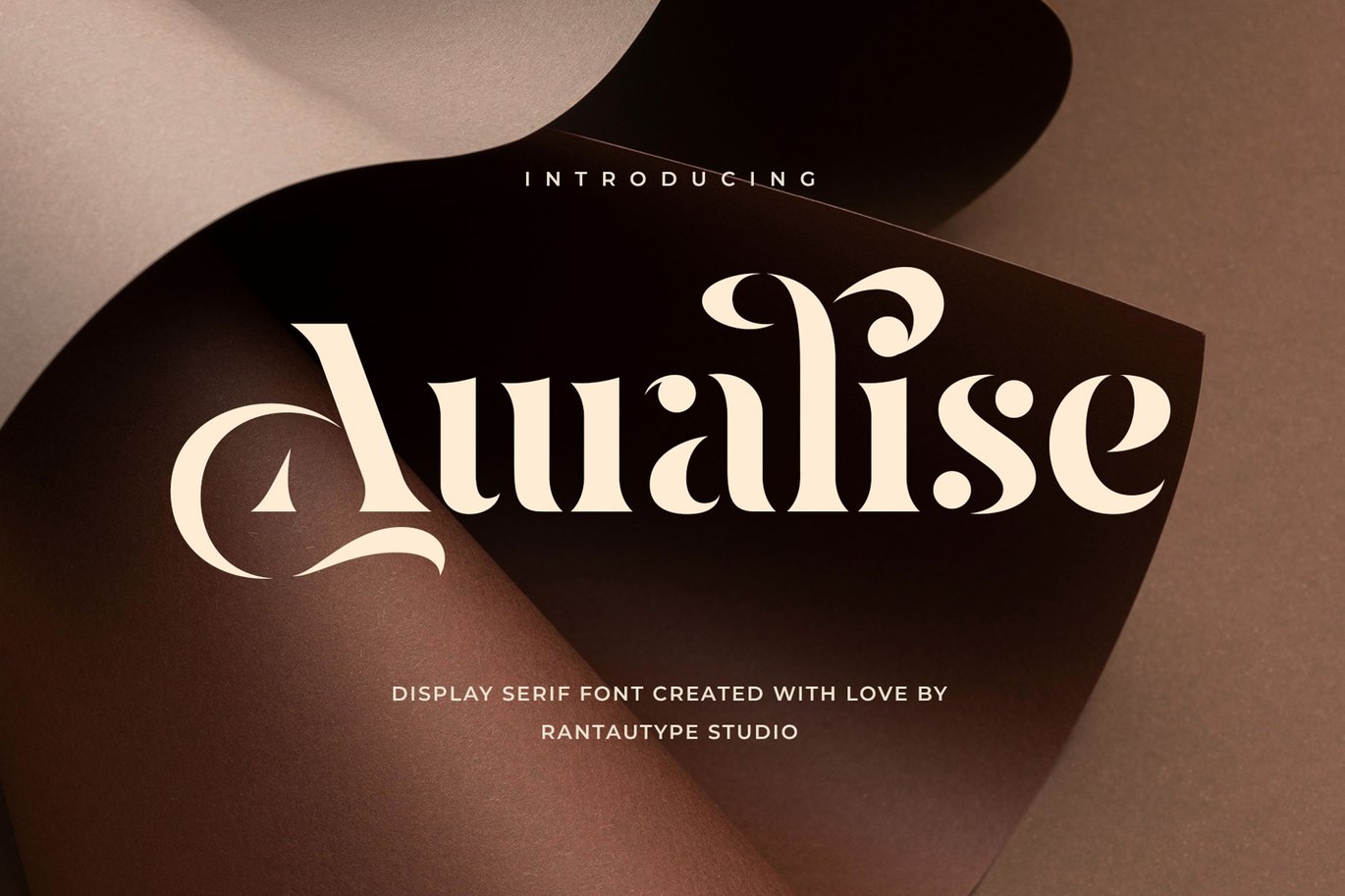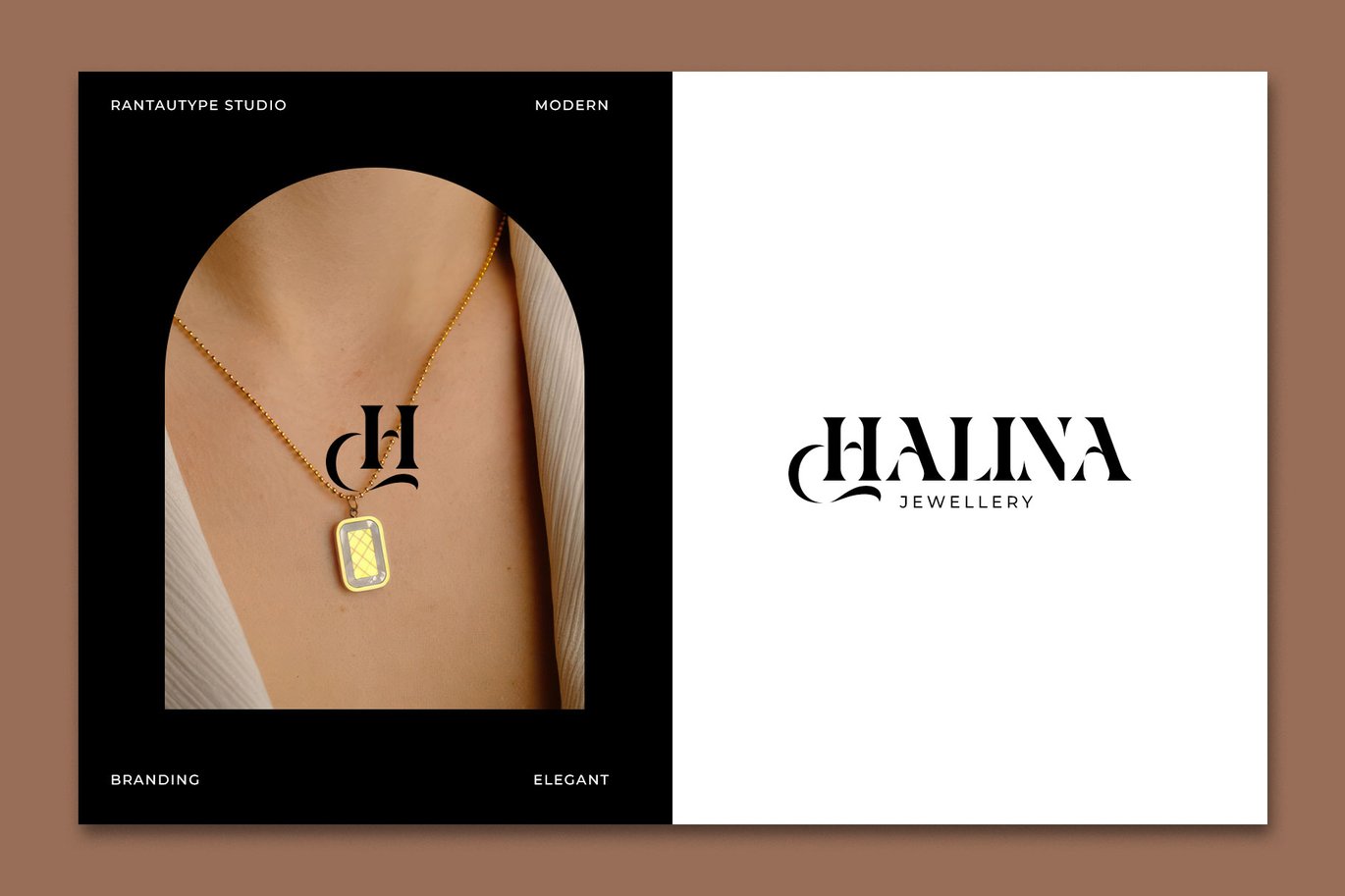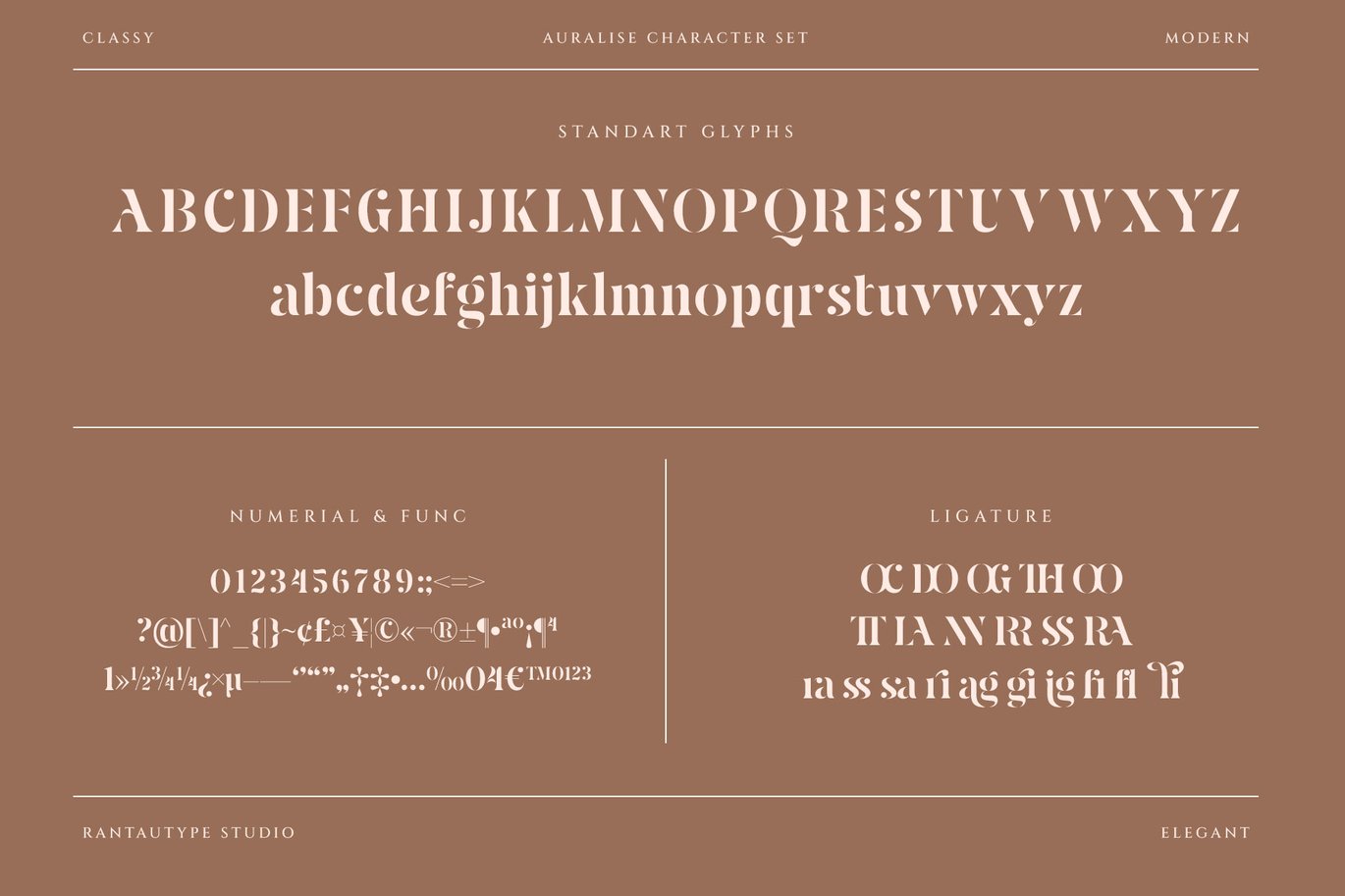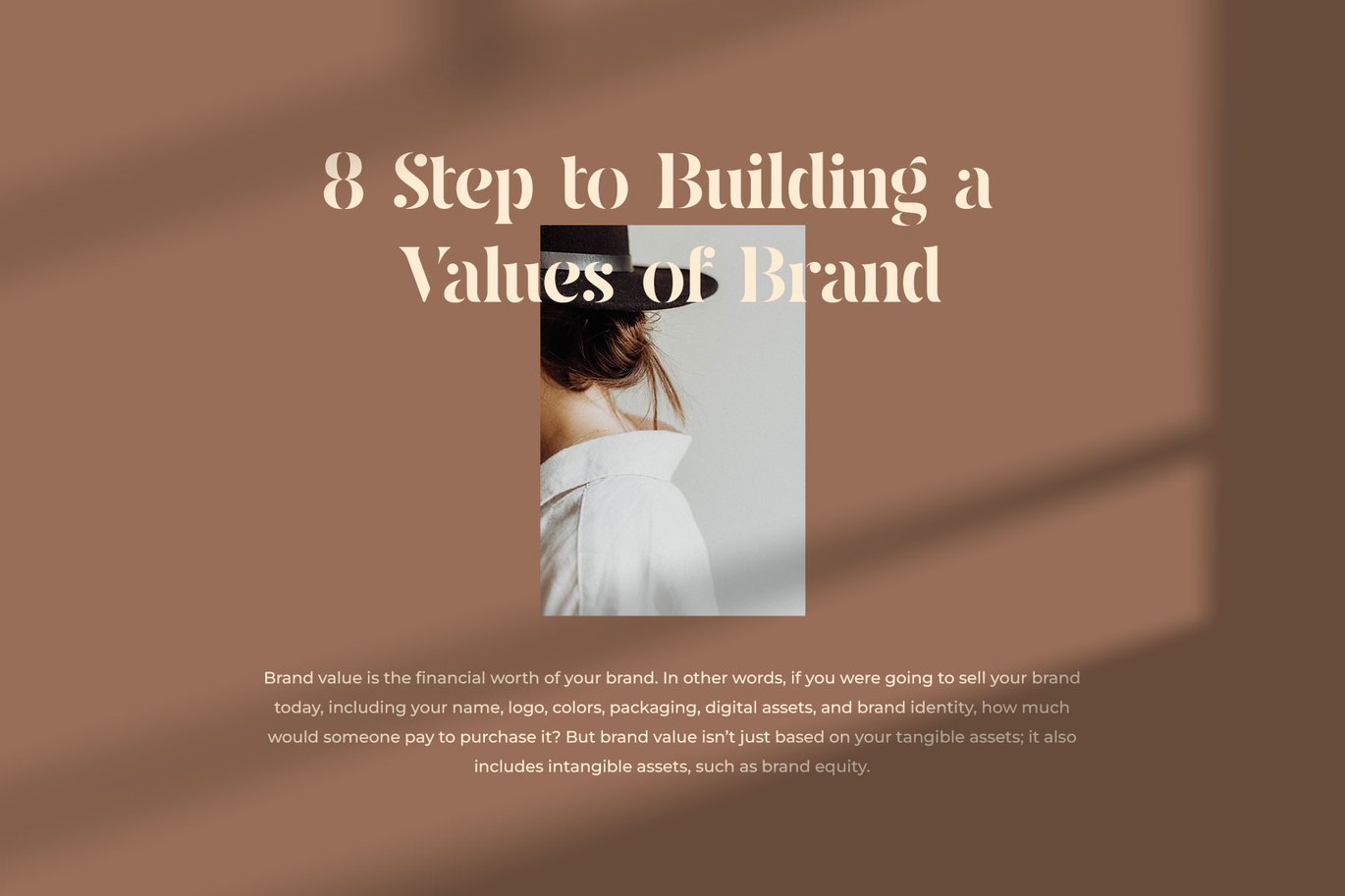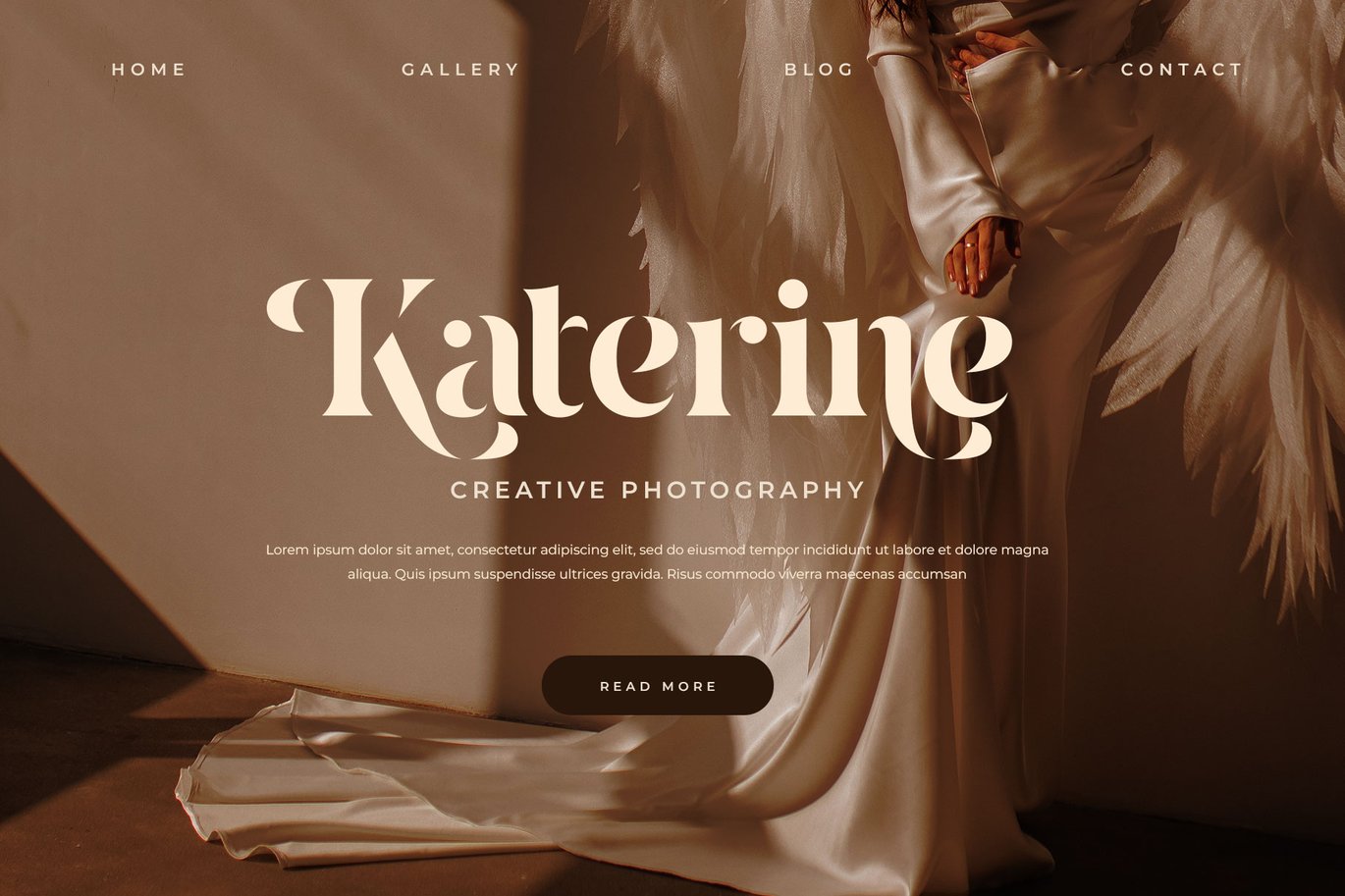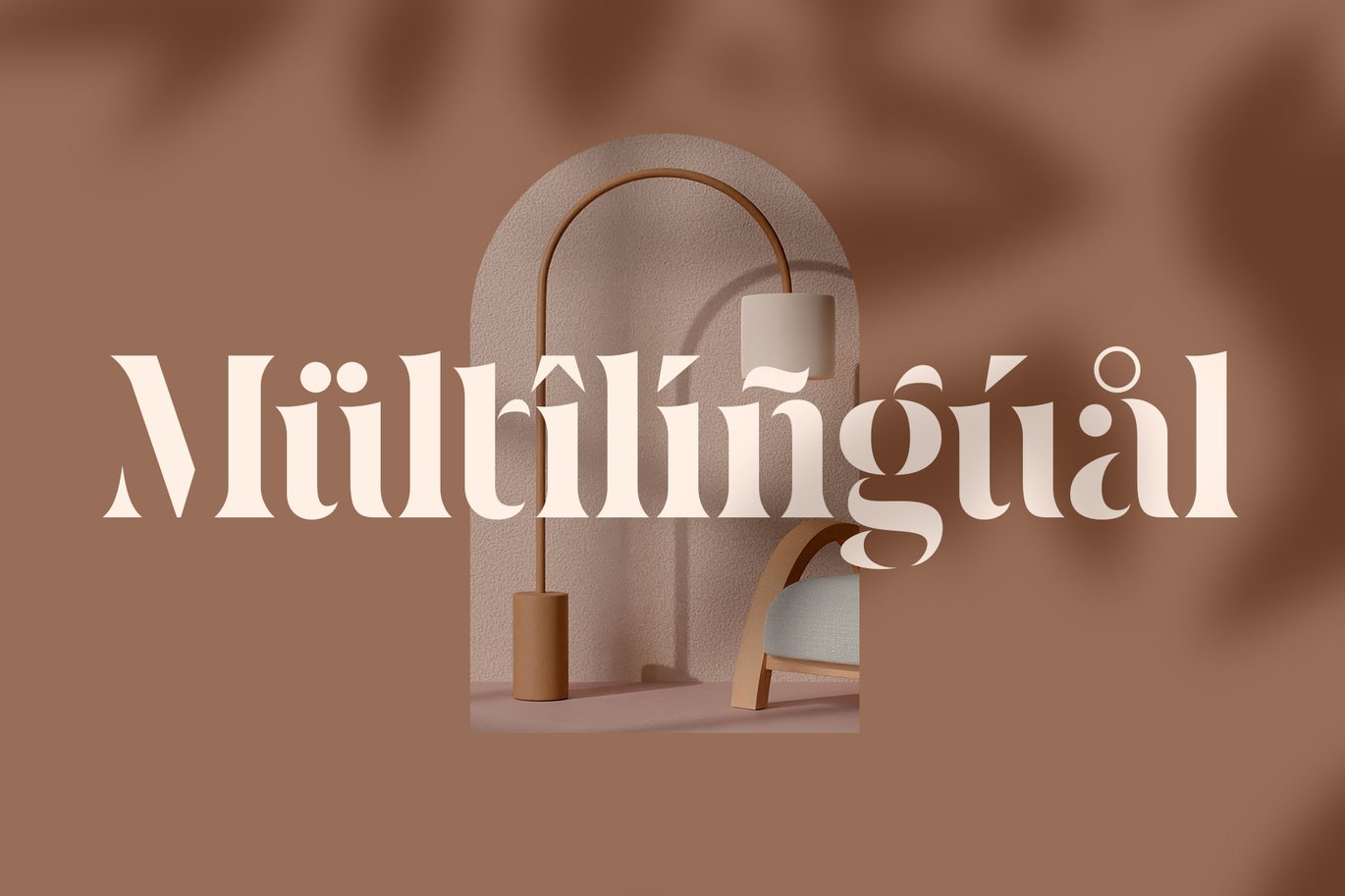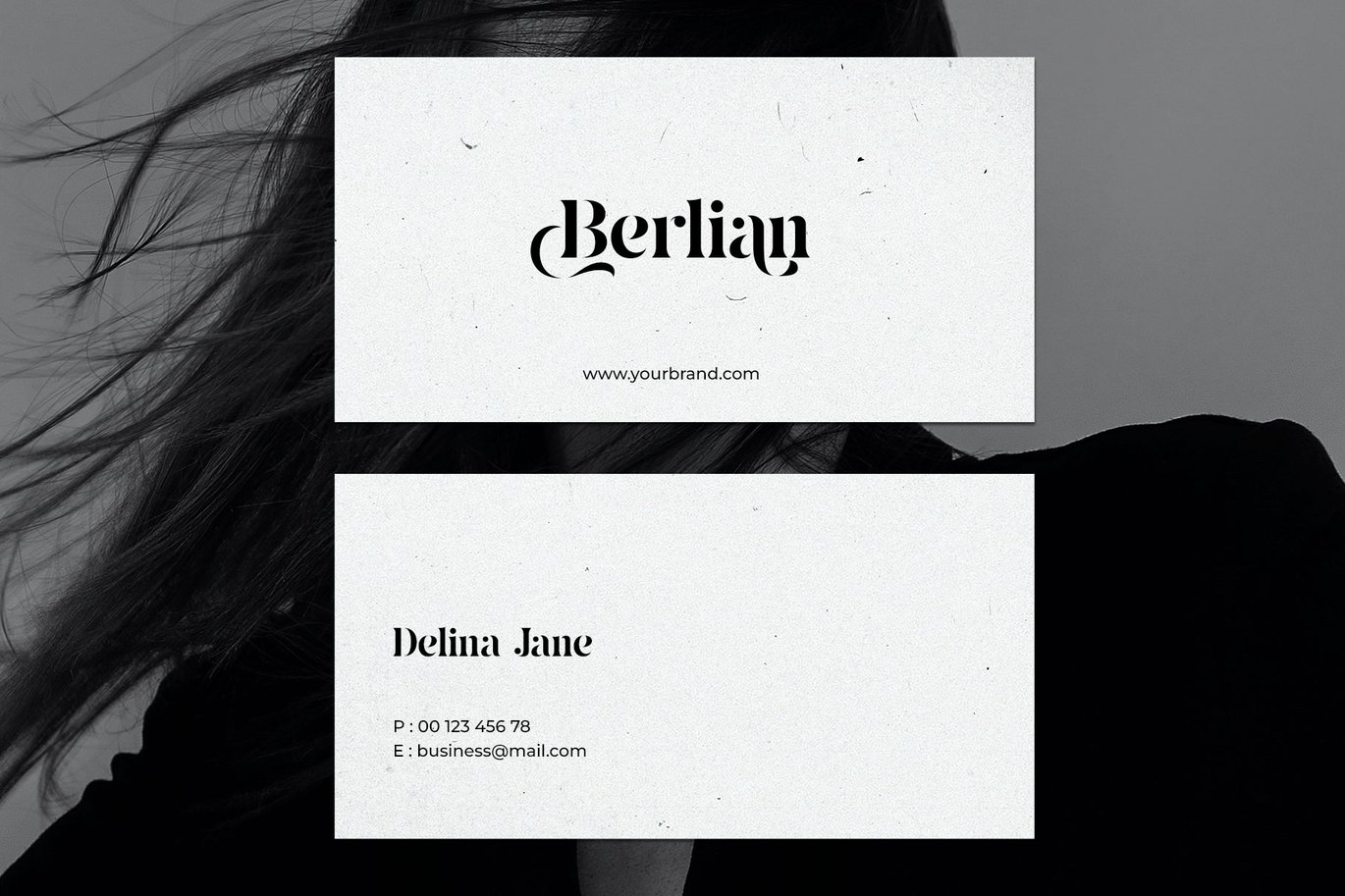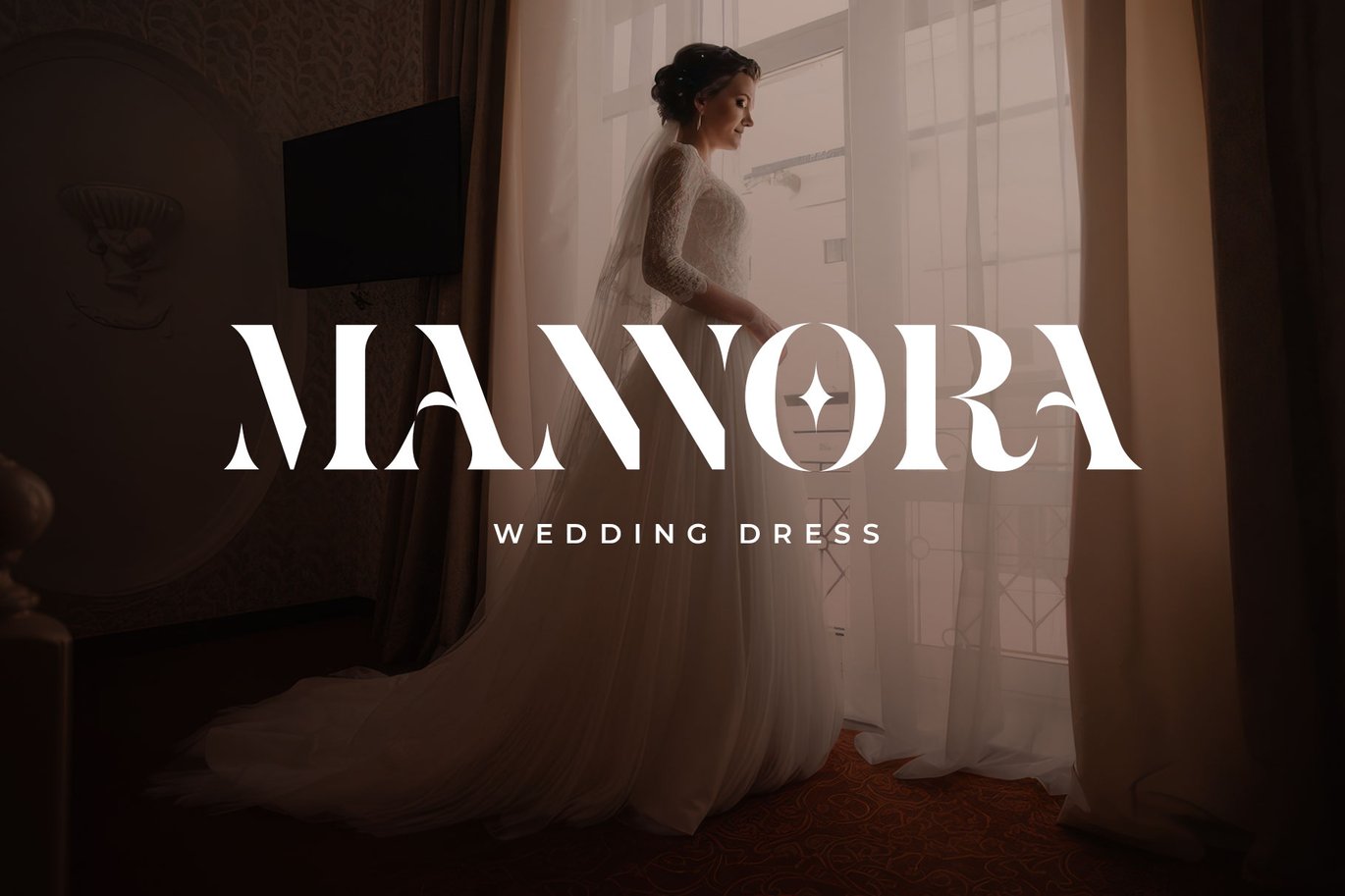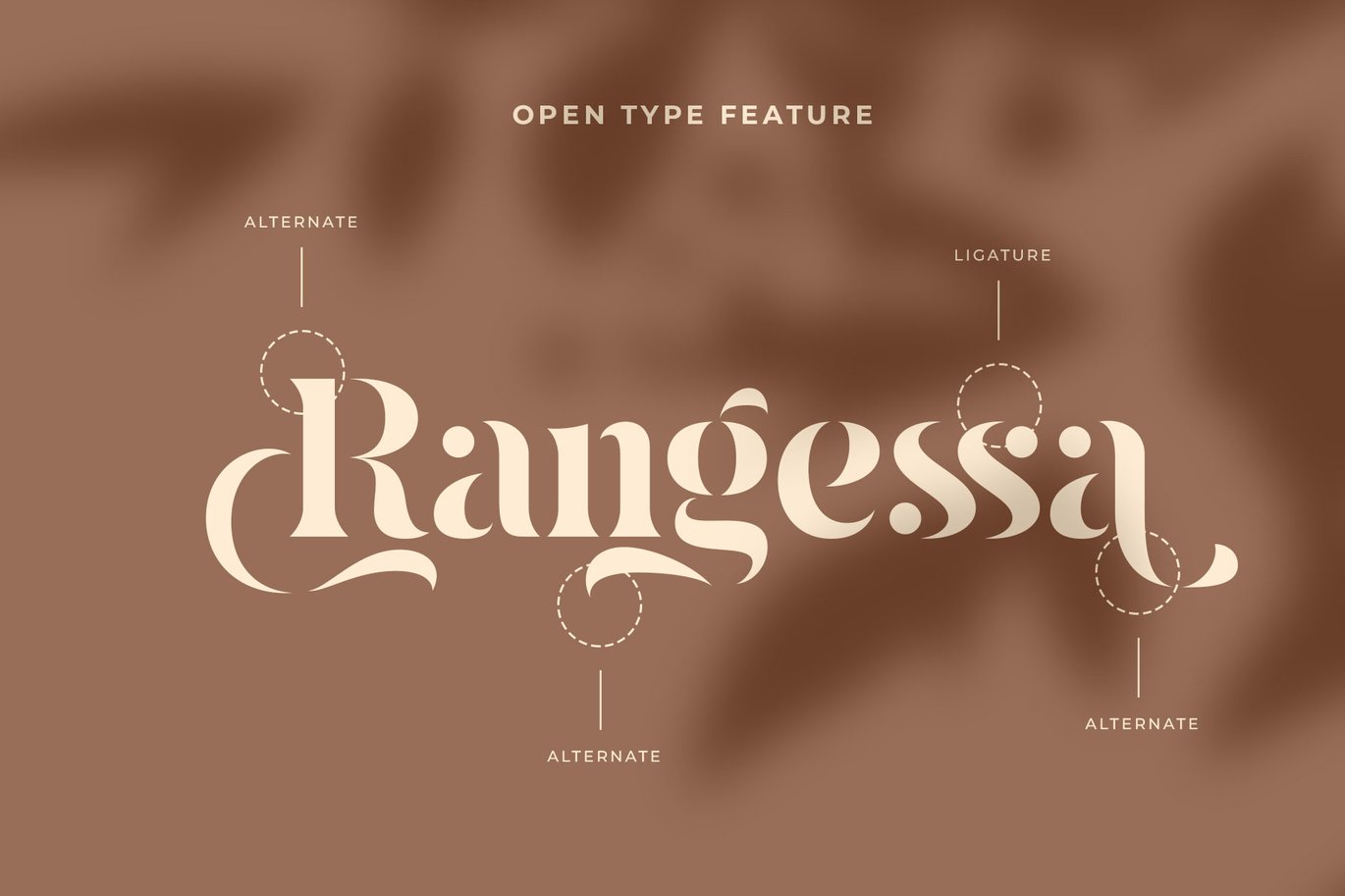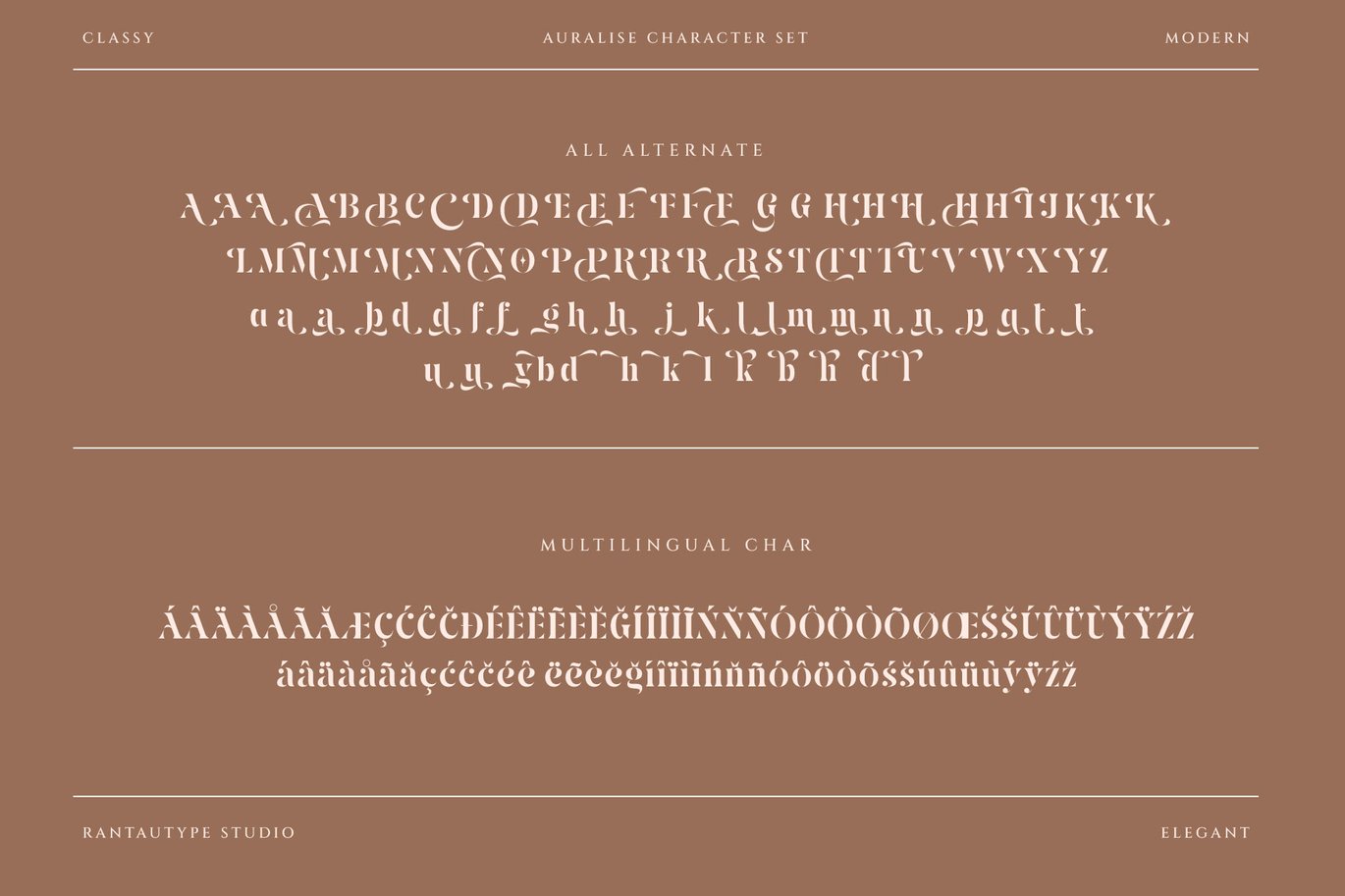
Auralise Logo Font
Auralise is most suitable for use in LOGO BRAND but does not rule out the possibility of being used in various designs. Auralise typeface inspire by fashion branded and elegant visual. We love how each character formed look elegant and professional. We keep this font looks fashionable, elegant, luxury, premium, modern, catchy and easy to use.
Auralise is a perfectly choice for any creative endeavor, chic, lifestyle design such as logos, advertisements, watermark on photography, stationery, branding project, display and magazine, invitation, corporate brand, product design, label, business project and many other project with elegant touch.
- Standart Glyphs
- Alternate and ligature
Fonts include Multilingual Character for: Afrikaans, Albanian, Asu, Basque, Bemba, Bena, Breton, Chiga, Cornish, Dutch, English, Estonian, Filipino, Finnish, Friulian, Galician, Gusii, Indonesian, Irish, Italian, Kabuverdianu, Kalenjin, Kinyarwanda, Luo, Luxembourgish, Luyia, Machame, North, Oromo, Portuguese, Quechua, Romansh, Rombo, Rundi, Rwa, Samburu, Sango, Sangu, Scottish, Gaelic, Sena, Shambala, Shona, Soga, Somali, Spanish, Swahili, Swedish, Swiss, German.